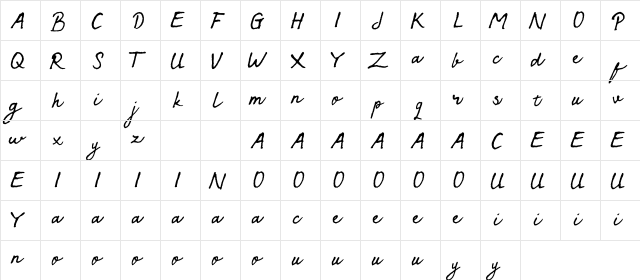
Sympathic Regular
Design Context for Sympathic Typeface
Sympathic is a composed and adaptable typeface that performs quietly and consistently across a wide range of design contexts.